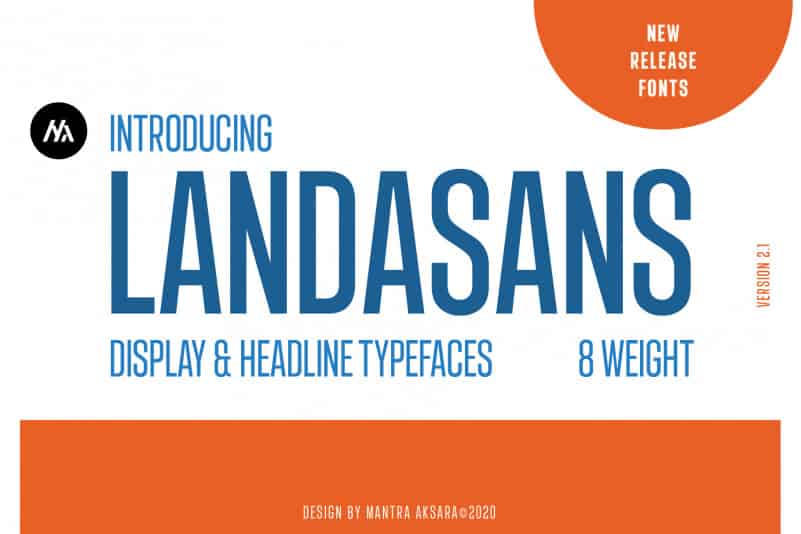
Landasans Sans Serif Font
Landasans Sans Serif Font is a modern and elegant sans-serif font. This typefaces is based on geometric stuctures, the shape are condensed and simple.
The Funtcional typefaces for any project. Landasans Font is well-suited for advertising, branding, logotypes, packaging, titles, headlines and editorial design.